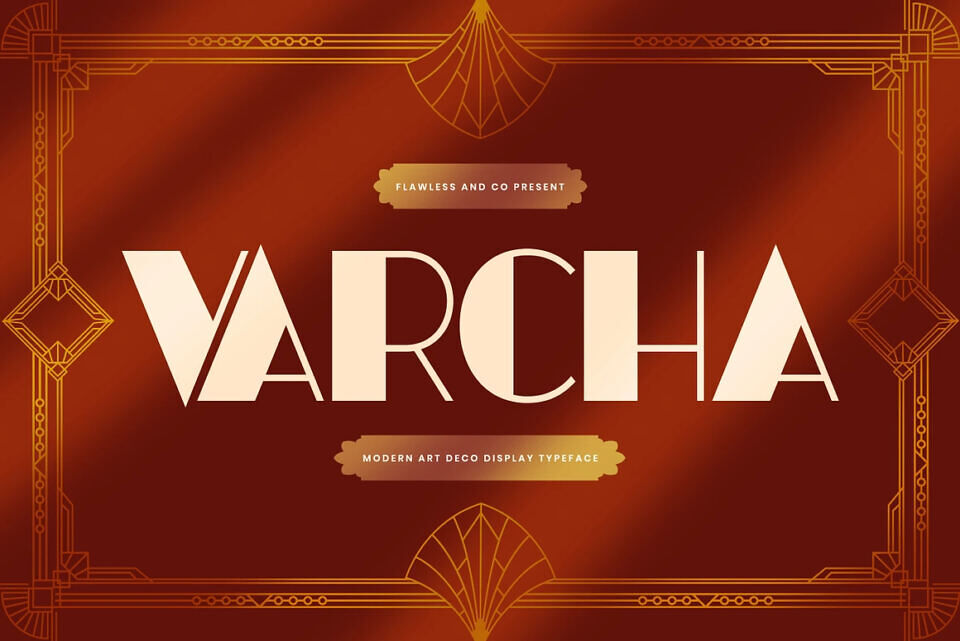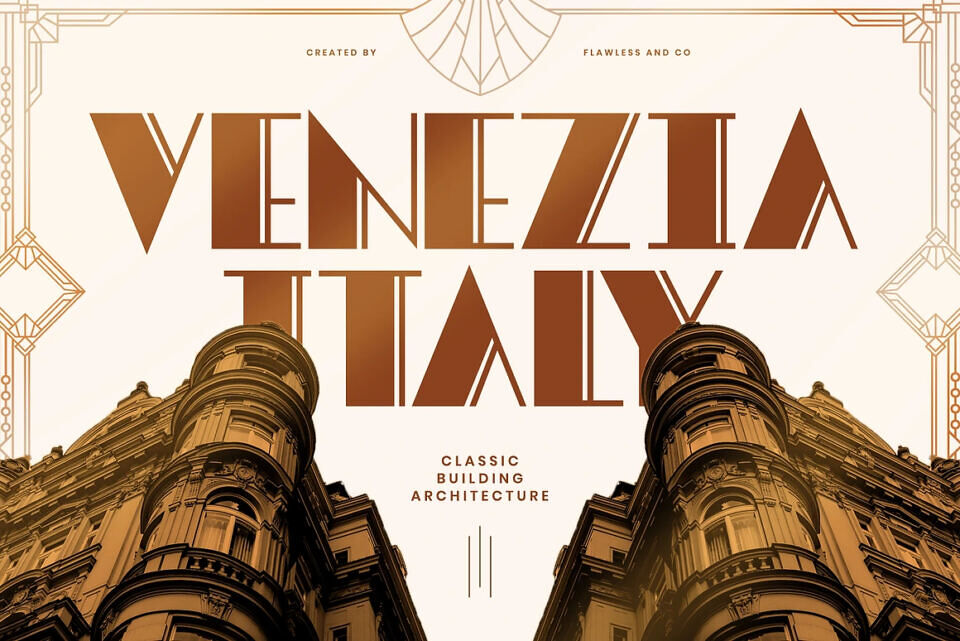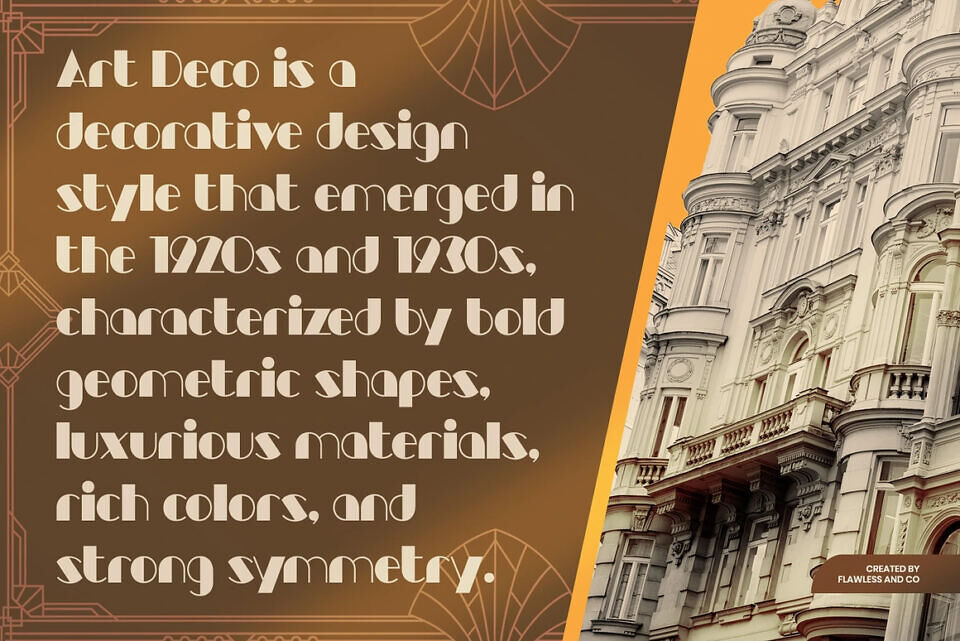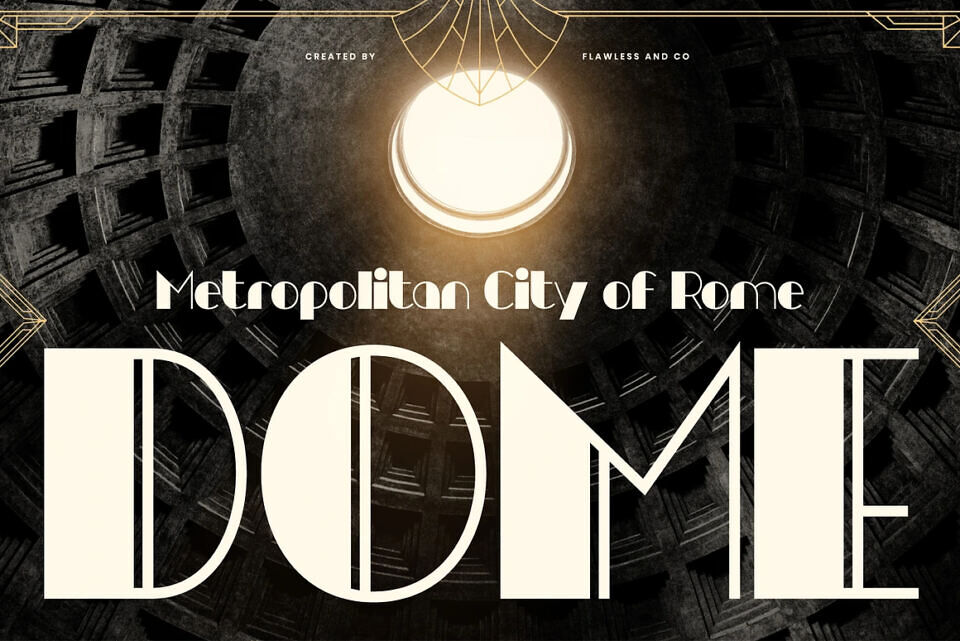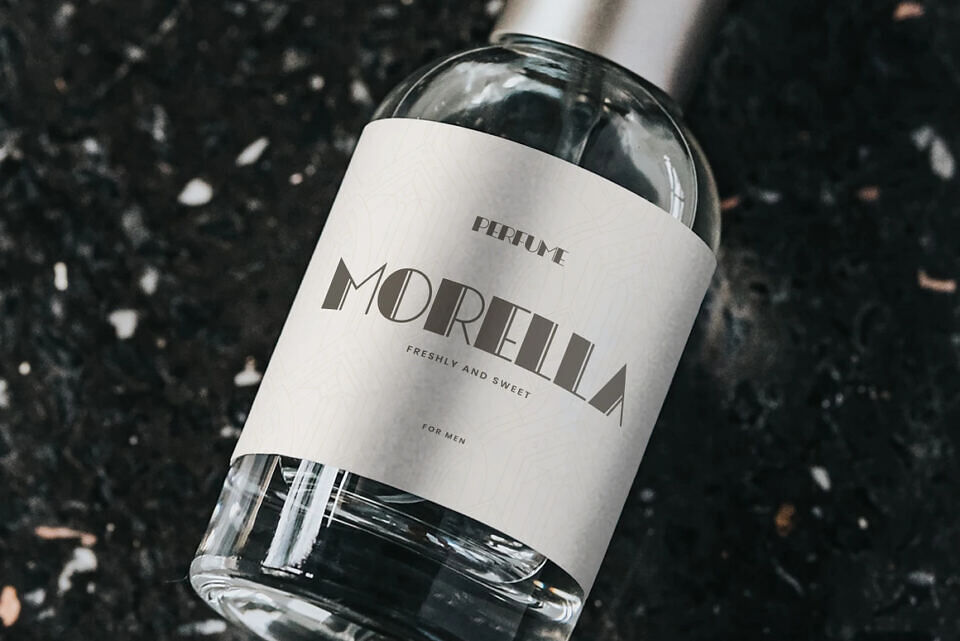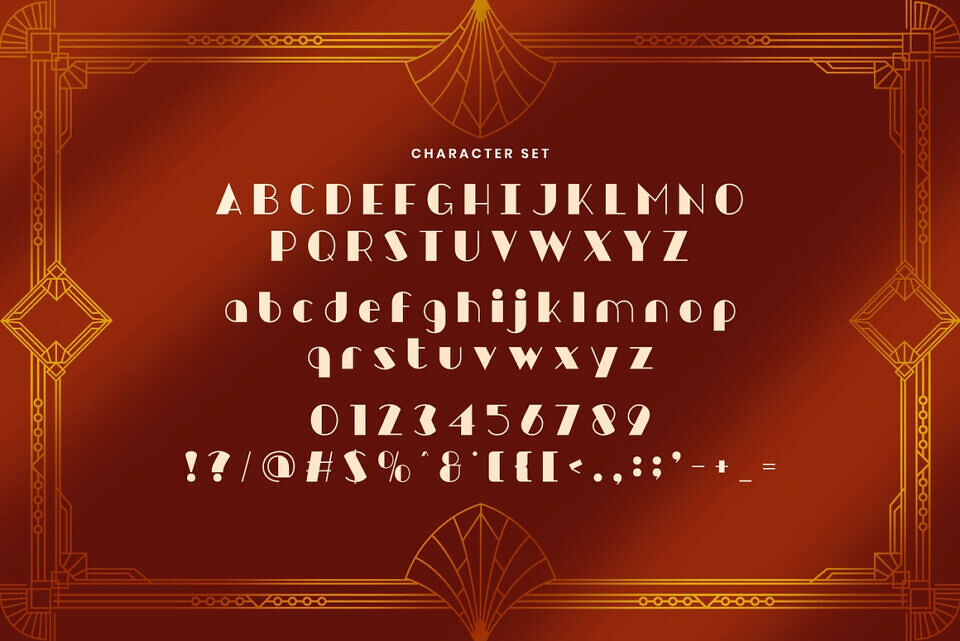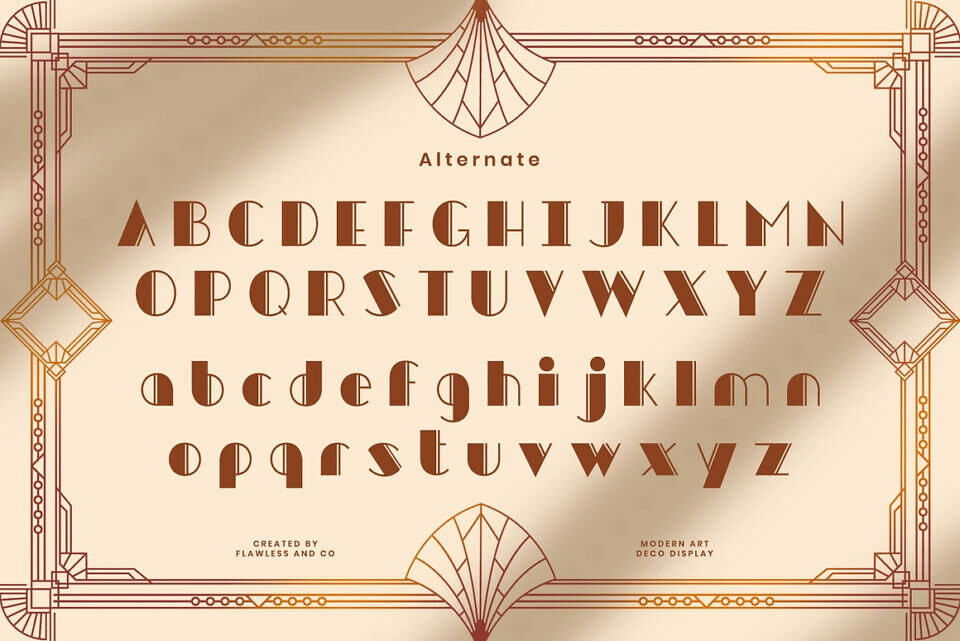
Varcha Font
Varcha is a modern display font inspired by the timeless beauty of Art Deco design. Bold geometric shapes, sharp edges, and refined curves come together to create a typeface that looks luxurious, stylish, and impeccably sophisticated. Every letter carries a sense of grandeur and exclusivity — making Varcha the perfect statement for high-end branding.